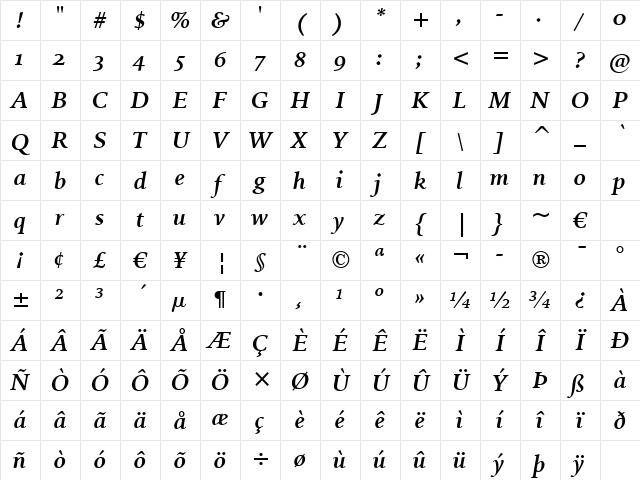
IowanOldSt OSF BT Bold Italic
Design Context for IowanOldSt OSF BT
IowanOldSt OSF BT is a composed and adaptable typeface that performs quietly and consistently across a wide range of design contexts. The slanted form adds forward momentum and visual energy. Its bold stroke weight gives it real presence on the page.
Pro Tip: Use IowanOldSt OSF BT for emphasis, pull quotes, and subheadings where its slanted energy can add rhythm to the layout.